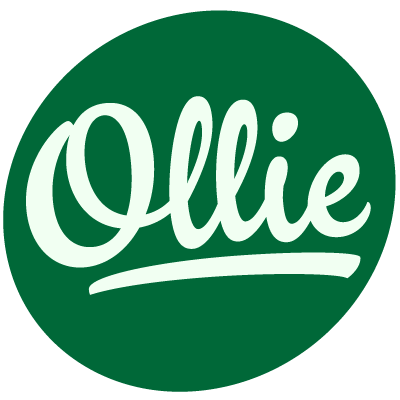
Ollie - Casual Signage Script OTF
- Meet Ollie, a casual signage script whose friendly, bouncy exterior belies a heart of sophisticated OpenType programming. This font is designed to make the most of OpenType savvy applications, and as such is recommended for professional design use. Or to put it another way: Make sure that contextual alternates and ligatures are always turned on! Ollie includes about 900 glyphs, many of which are automagical substitutions to keep the text flowing smoothly, and to pseudo-randomly pick different glyphs to avoid repetition. With contextual alternates turned on (as they should be by default), most lowercase letters will alternate between at least two different forms. The powerful OpenType programming makes the font itself ‘look back’ (up to eight characters) on previously used letters; typing “banana” will give you three different a’s and two different n’s (the last a is a special ‘end form’ character). The calt feature controls many other ‘special effects’ which all add together to give a smooth-flowing, hand-lettered look. These effects include start and end forms (and indeed, ‘loner’ forms) of many letters, which are automatically substituted in at beginnings or ends of words, or when the previous or next letter doesn't connect. Another special feature tests to see if there is room for the crossbar of t (or tt ligature) to extend further over the previous or next letter, or both, as is often the case. The last main effect of the calt feature is to substitute certain letters typed before any ‘e’ character, to make for a more natural connection (see the pe combination in ‘Schizotype’ in the first poster). Ligatures should be on by default, for a much nicer looking tt combination, and a few others besides. The swash feature should be used sparingly (one glyph at a time, really) to apply a more extravagant look to g,j and y in the lower case, and quite a few of the upper case too.